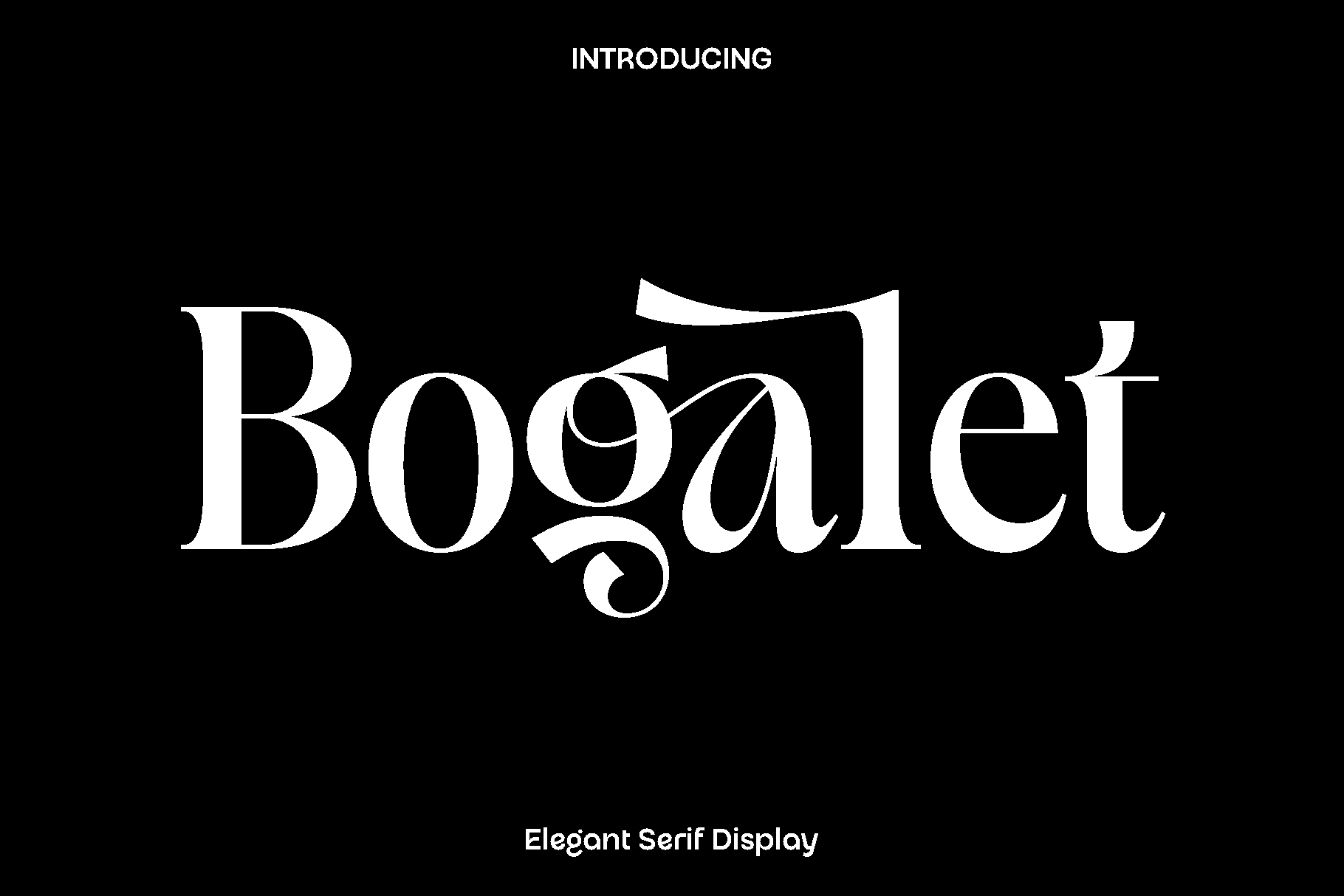
Bogalet - Elegant Serif Font
Bogalet is a refined serif display font created to express classic beauty, feminine charm, and timeless elegance. Inspired by graceful typography and vintage aesthetics, Bogalet features carefully shaped letterforms with smooth curves and delicate contrast. Its beautifully crafted alternates add personality and flow, allowing designers to create expressive and sophisticated typography that feels warm, stylish, and memorable.
This font truly shines in projects that require elegance and emotional appeal. Bogalet is perfect for logos and branding, wedding invitations, stationery, editorial headlines, product packaging, labels, photography overlays, watermarks, and refined social media content. Its elegant presence enhances both print and digital designs, making every word feel thoughtfully designed and visually captivating.
Bogalet feels graceful, romantic, and confident. The combination of classic serif structure and decorative alternates gives designers creative freedom while maintaining clarity and balance. Whether used for luxury branding or special event designs, Bogalet elevates your work with charm and sophistication, making it an excellent choice for designers seeking beauty and versatility in one typeface.
Bogalet Serif Display Font Features:
• Uppercase and lowercase
• Numerals and punctuation
• Functional ligatures
• Stylish alternate characters
• Multilingual support